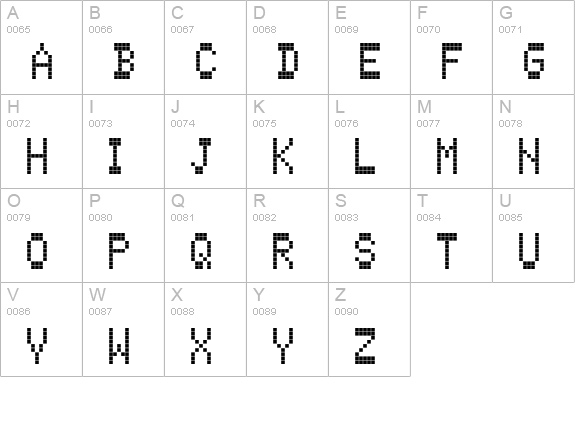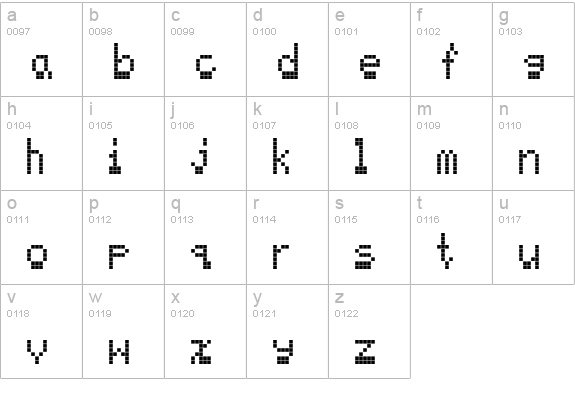
ScreenMatrix-RegularCondensed Font Details
Introducing ScreenMatrix-RegularCondensed font, a sleek and modern typeface that is perfect for adding a touch of sophistication to your designs. This condensed variation of the ScreenMatrix font family offers a compact and space-saving option without compromising on style. With its clean lines and geometric shapes, ScreenMatrix-RegularCondensed exudes a sense of professionalism and versatility. Whether you are working on a website, logo, or print materials, this font will effortlessly elevate your projects to new heights. What sets ScreenMatrix-RegularCondensed apart is its accessibility. This font is freely available to download at FontsMarket.com, making it a valuable asset for designers on a budget or those who simply appreciate the beauty of free resources. Its availability at FontsMarket.com ensures that you can easily access and incorporate this font into your creative endeavors. Designed with legibility in mind, ScreenMatrix-RegularCondensed is highly readable in both small and large sizes. Its condensed nature allows for more text to fit within a limited space, making it an ideal choice for headlines, captions, or any situation where space is a premium. ScreenMatrix-RegularCondensed also offers a wide range of language support, ensuring that it caters to a global audience. Its versatility extends to various design styles, from contemporary to futuristic, making it a versatile choice for any creative project. In conclusion, ScreenMatrix-RegularCondensed font combines sleek aesthetics with practicality, offering a condensed variation that is both visually pleasing and space-saving. Its free availability at FontsMarket.com makes it an accessible choice for designers, enabling them to create stunning designs without breaking the bank. So why wait? Download ScreenMatrix-RegularCondensed today and elevate your designs to new heights.